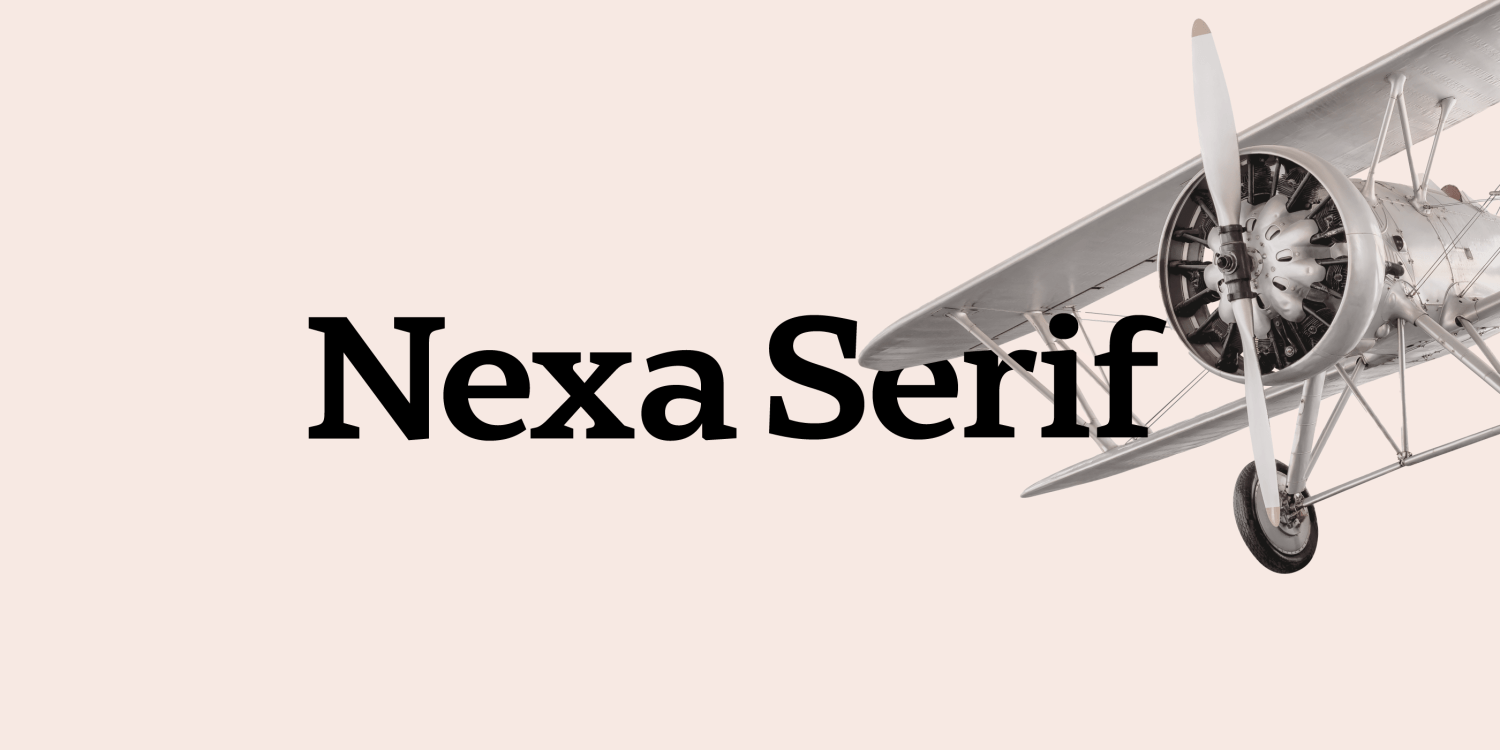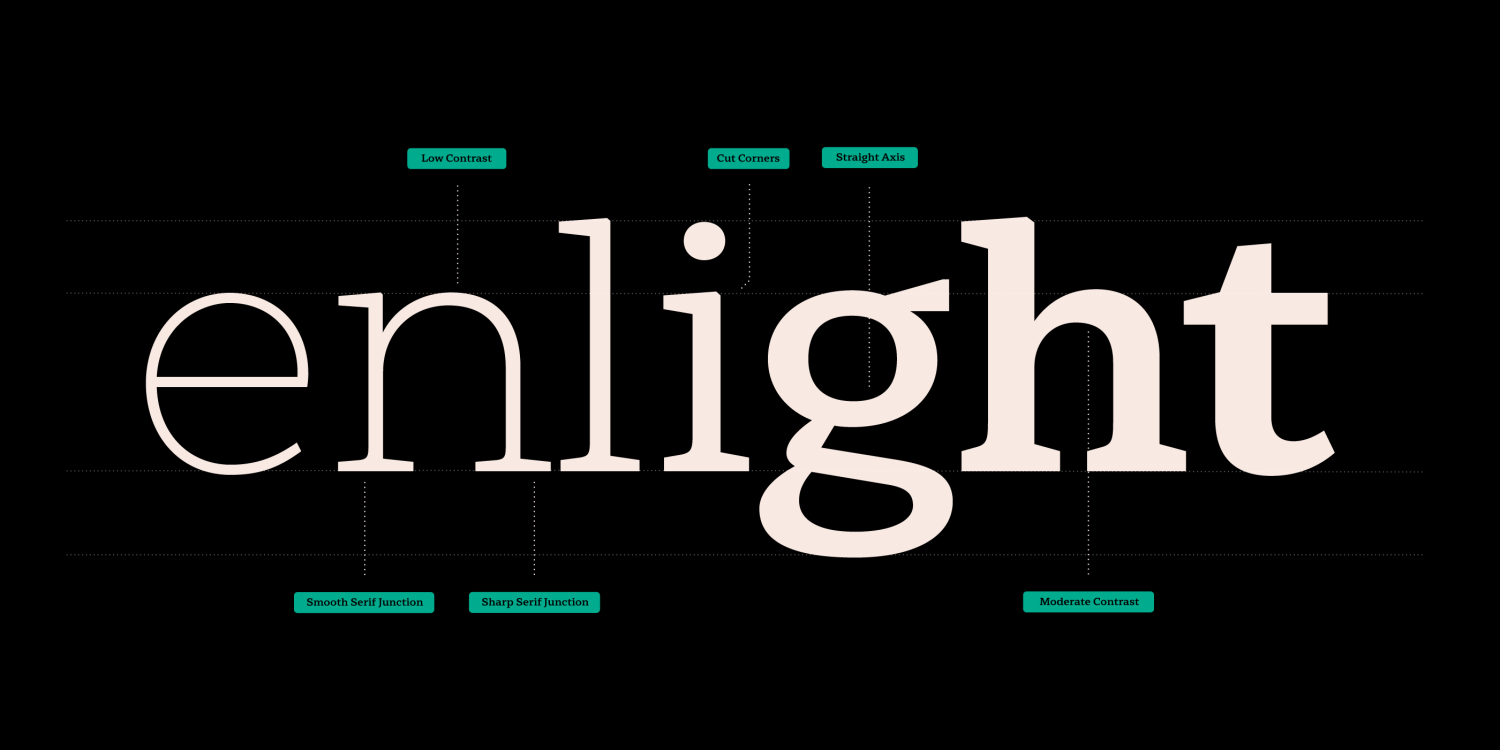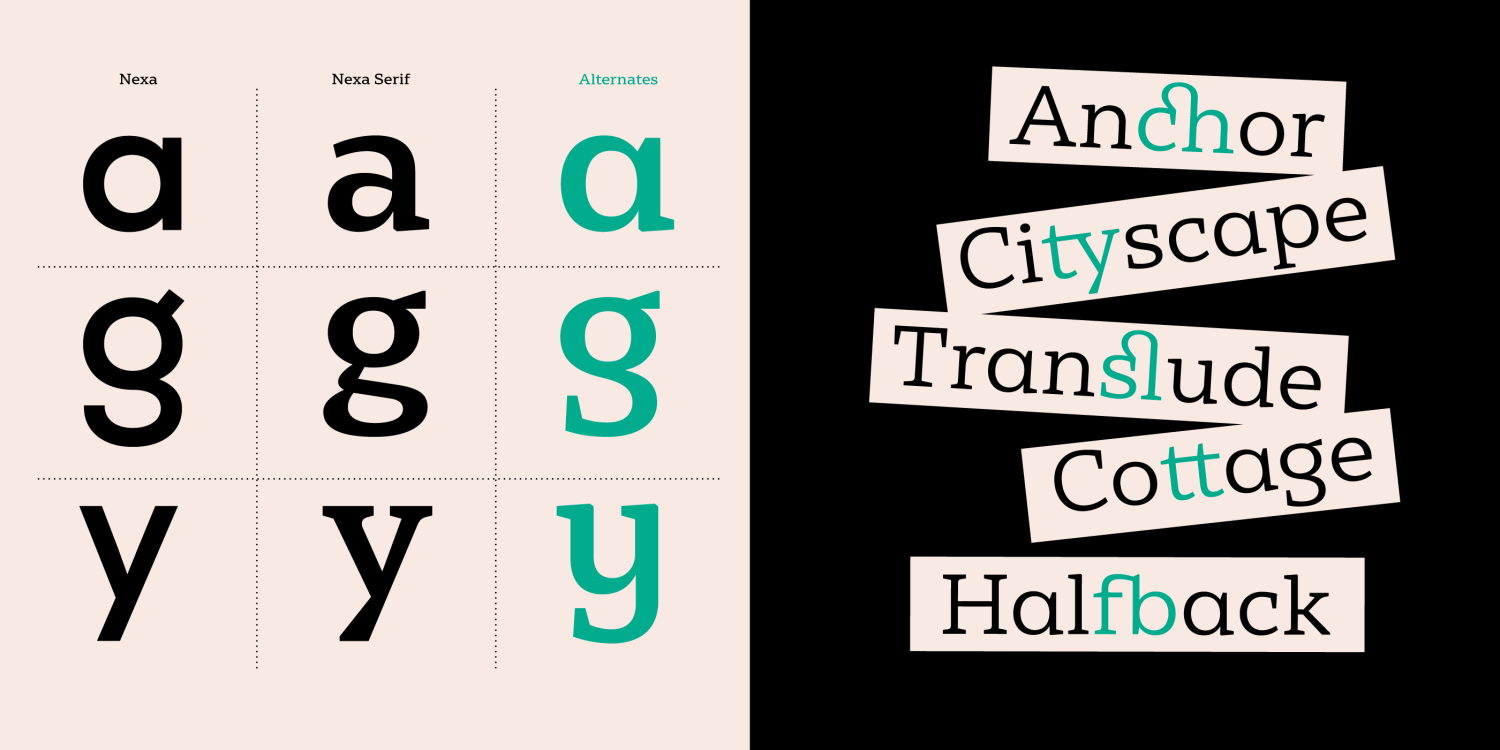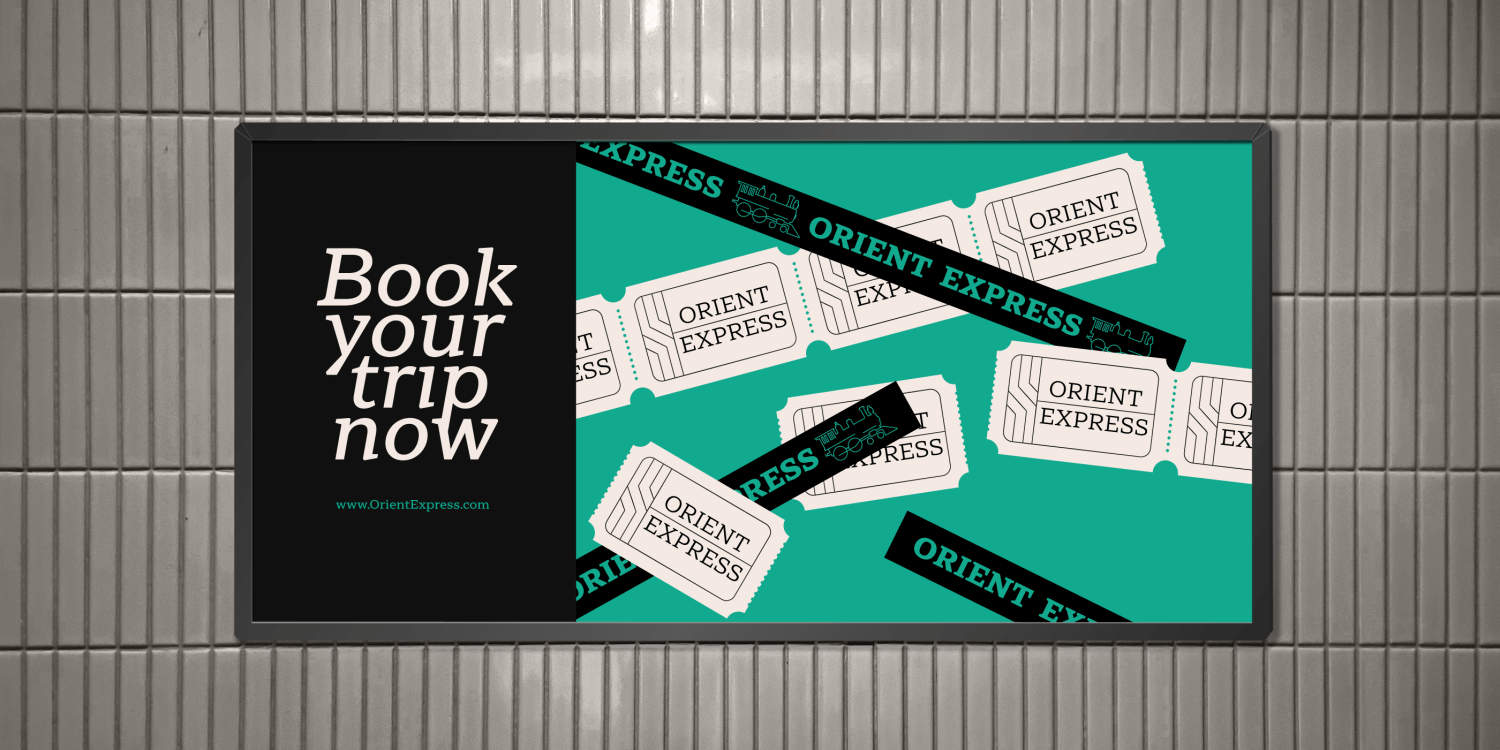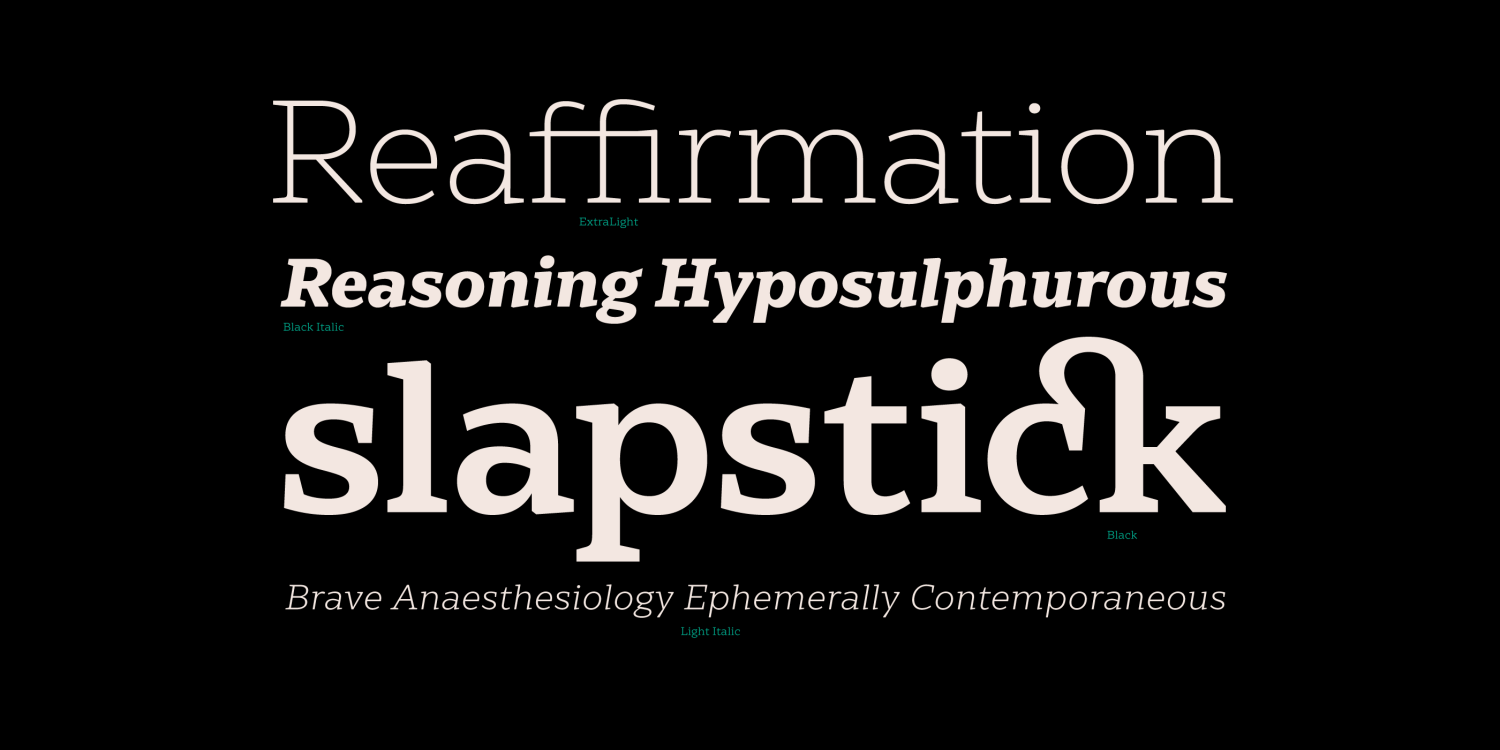
Nexa Serif
Buy NowNexa Serif is inspired by our bestselling Nexa, crafted to complement it while standing strong as an independent typeface. For years, we envisioned a serif counterpart that maintains Nexa’s geometric simplicity while introducing a sophisticated, intricate touch. Our goal? To create a typeface that blends clean construction with refined details for seamless pairing.
We achieved this by preserving key letter proportions and contrast while infusing unique character forms—special versions of letters like ‘a’, ‘g’, and ‘y’ draw direct inspiration from Nexa’s sans-serif foundation. The result is a versatile serif enriched with functional and stylistic ligatures, making it ideal for both body text and eye-catching headlines.
Whether used alongside Nexa or on its own, Nexa Serif is a powerful tool for designers looking for a balanced, elegant, and highly legible font.
Why Choose Nexa Serif?
Nexa Serif is a Serif typeface designed for various design applications. Its seamless geometric-seriffed fusion makes it an excellent choice for creatives who want to make a lasting impression. Whether you're working on branding, editorial design, or websites, this font delivers effortless readability, aesthetic balance, and typographic flexibility.
With 18 weights, advanced OpenType features, and extensive multilingual support, Nexa Serif ensures premium typography for every project. Elevate your designs with the timeless elegance of Nexa Serif. Download it today!